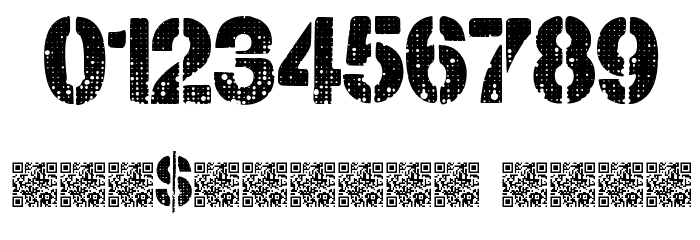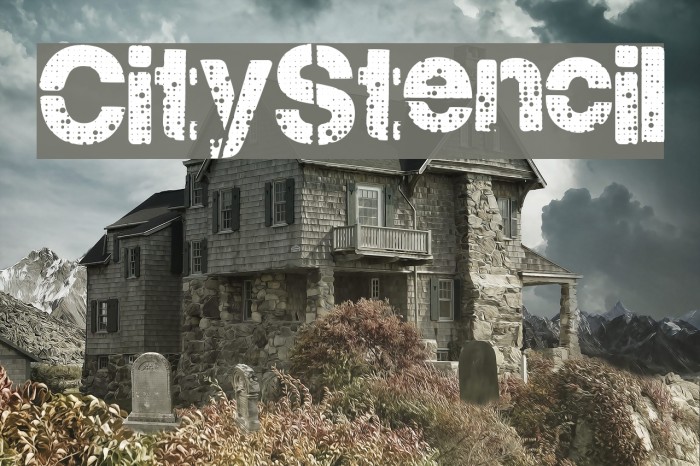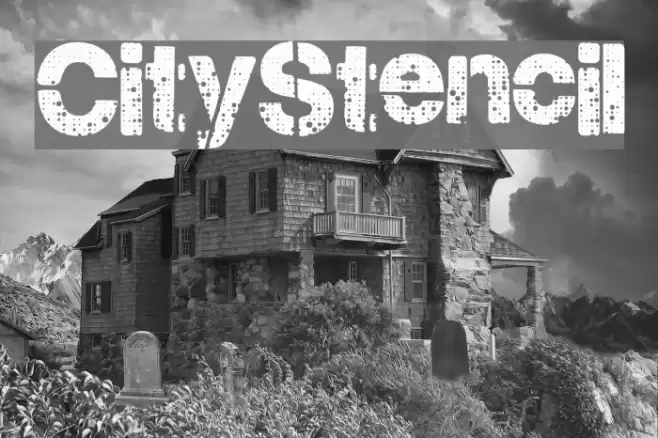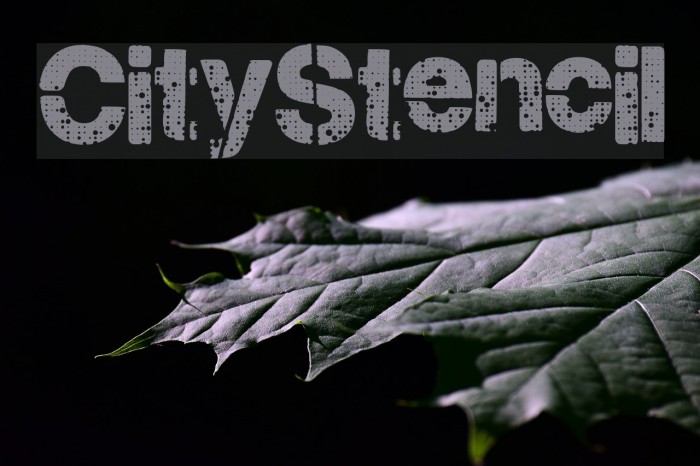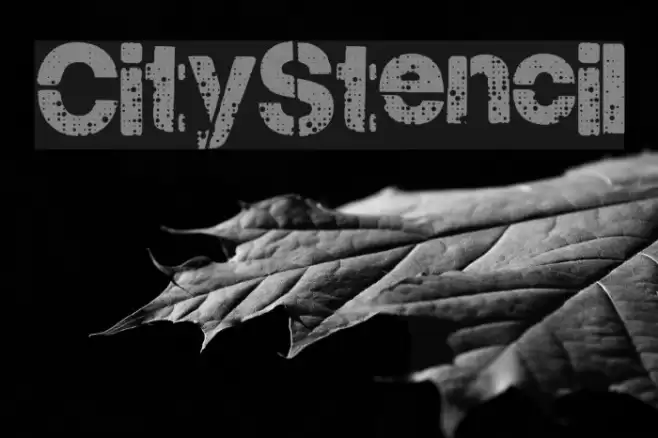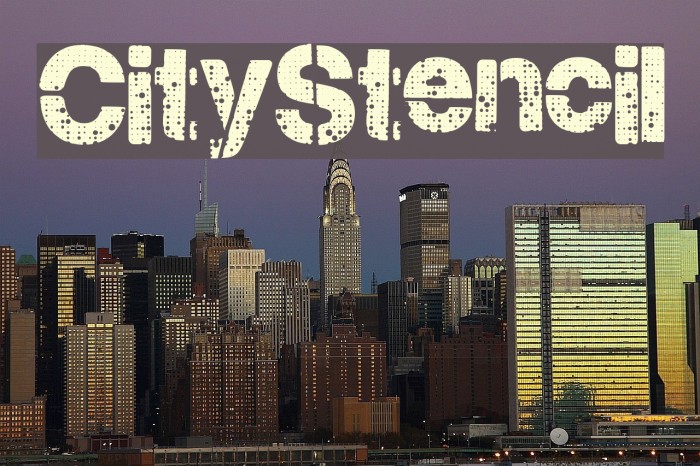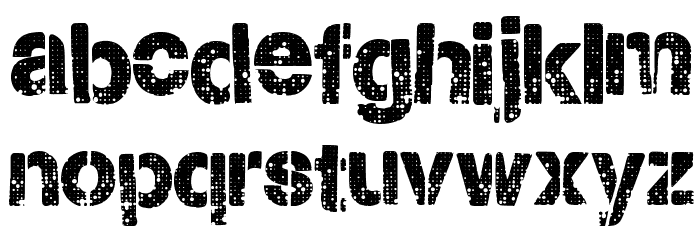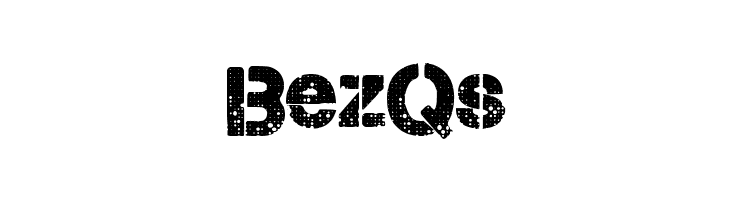
CityStencil Font
This font features a bold, stencil-like design with a distressed texture, giving it an urban and industrial feel. The characters are robust and impactful, with a consistent thickness throughout, which enhances its legibility. The distressed effect adds a gritty, worn appearance, making it ideal for projects that require a rugged or vintage aesthetic. The uppercase and lowercase letters maintain a uniform style, while the numerals and special characters complement the overall design. This font is versatile for creative projects that aim to convey strength and edginess.
A bold, distressed stencil font with an urban, industrial vibe.
• Proposed Projects: Ideal for posters, signage, branding, and any project needing a rugged, urban look.
• Category: Decorative/Display
• Bold: Yes
• Italic: No
• Weight: Bold
• Width: Normal
• Character Spacing: Normal
• Contrast: Low
• Overall Style: Urban, Industrial, Vintage
• Use Case: Headlines, Logos, Posters